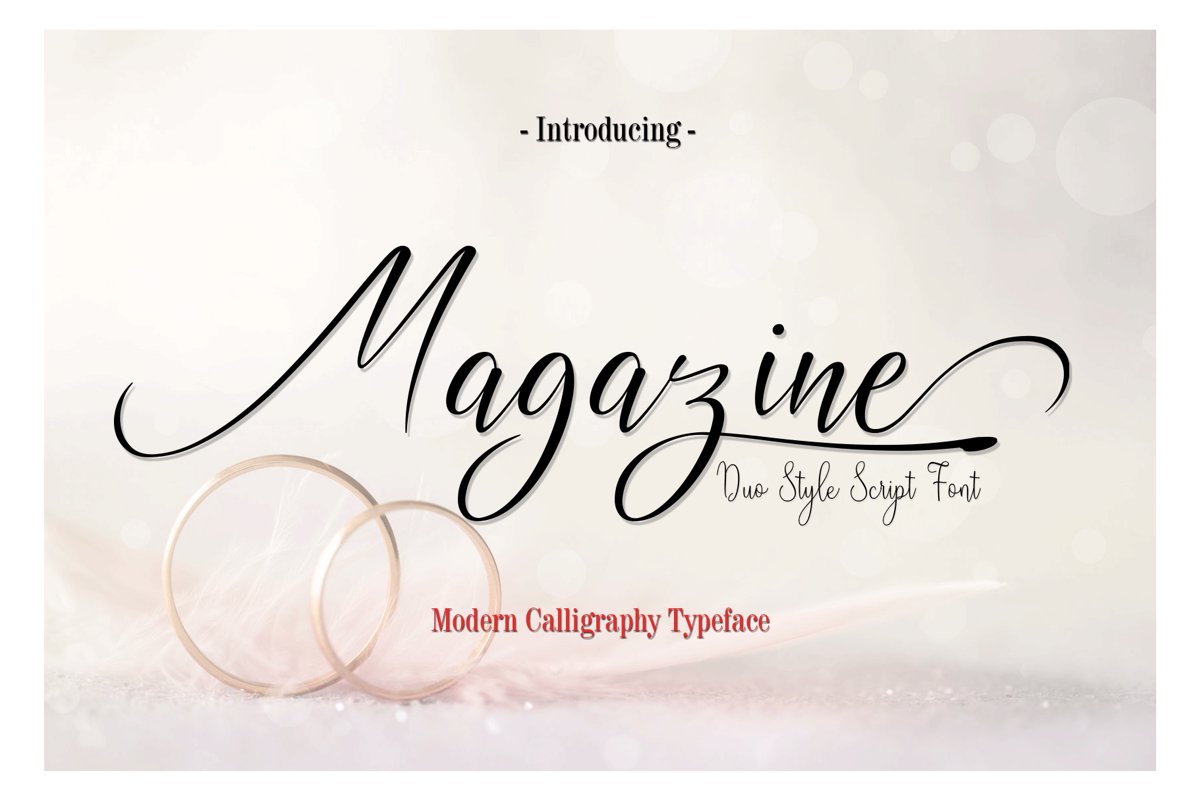
Introducing the lovely new Magazine Script Font! Magazine was built with OpenType features and includes beginning and ending swashes, numbers, punctuation, alternates, ligatures and it also supports other languages :)